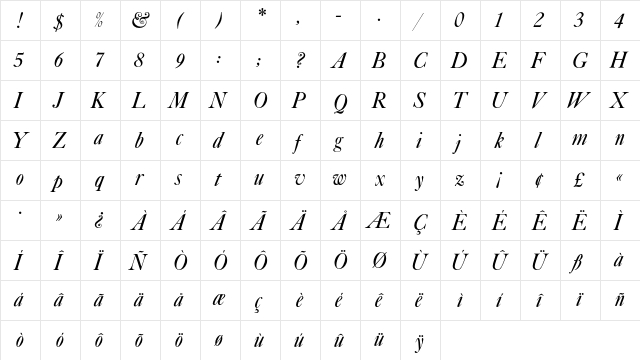
Caslon540EF Italic Font Preview
Caslon540EF Italic
Caslon540EF Italic Font Details
Design Context for Caslon540EF Typeface
Caslon540EF is a composed and adaptable typeface that performs quietly and consistently across a wide range of design contexts. Its italic angle brings a sense of urgency and motion to the letterforms.
Pro Tip: Try Caslon540EF for annotation and caption copy alongside an upright companion — the contrast in angle creates a dynamic but ordered typographic system.